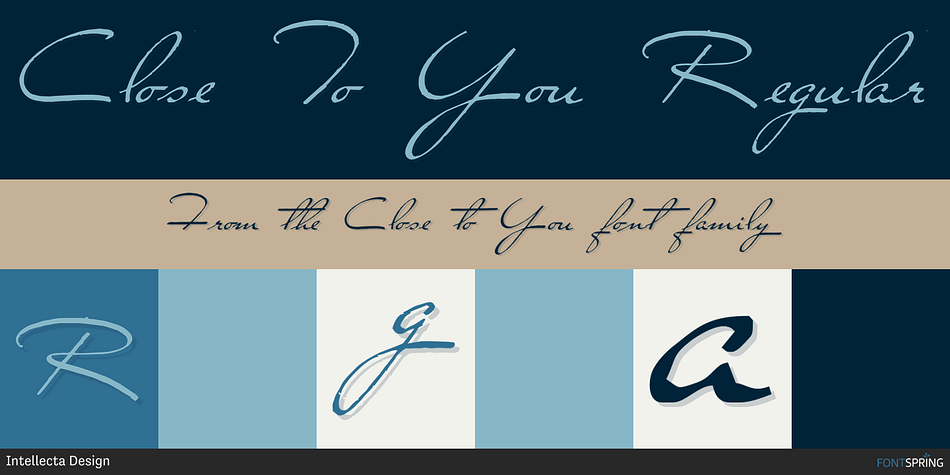
Close to You
Designed by Paulo W, Close to You is a historical and modern calligraphy font family published by Intellecta Design.
A naive and beautiful signature font